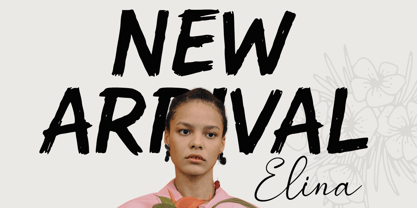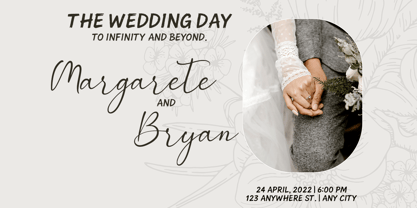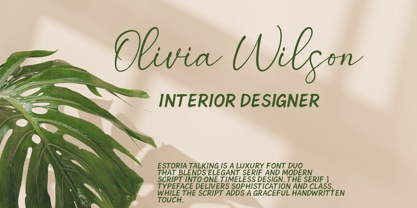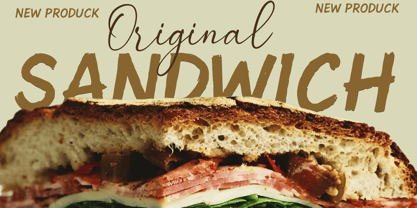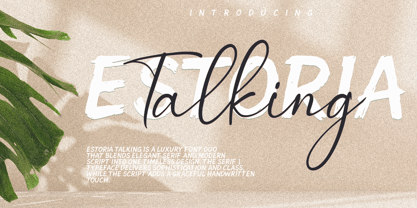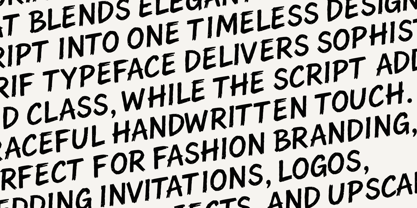
Estoria Talking Script
by Cocodesign
The Estoria Talking Script Font Family was designed by Muhammad Zaini and published by Cocodesign. Estoria Talking Script contains 2 styles and family package options. More about this family
Estoria Talking is a luxury font duo that blends modern serif and elegant script into one timeless design. The serif style delivers strength and sophistication, while the script adds a graceful handwritten touch. Perfect for fashion branding, editorial projects, packaging, wedding invitations, and logo design, Estoria Talking offers versatility for both bold titles and refined typography. Its balanced combination of classic and modern elements makes it a reliable choice for high-end creative work.
Designers: Muhammad Zaini
Foundry: Cocodesign